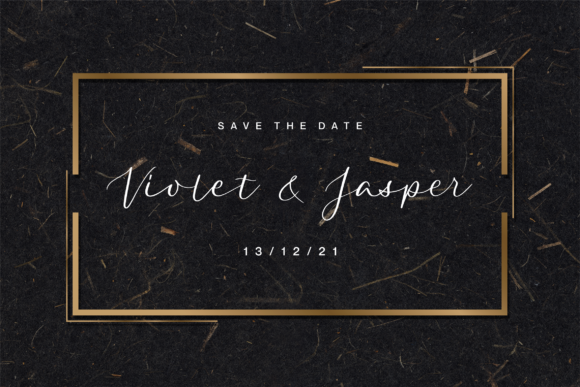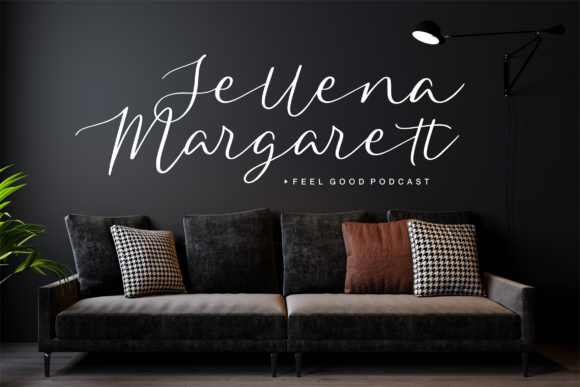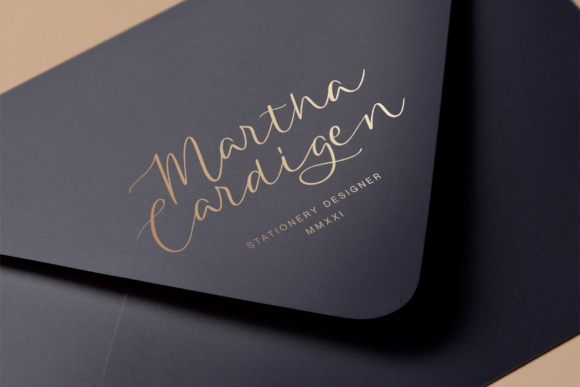
Introduction to Qarllottey Font
As a designer, have you ever been stuck in the midst of a creative project, searching for that perfect font to elevate your design and make it truly shine? You’ve scrolled through numerous options, but nothing seems to capture the essence you’re looking for. That’s where the Qarllottey Font comes in – a beautiful and refined script font that’s sure to leave a lasting impression.
With its classy, elegant, and modern look, the Qarllottey Font is a valuable addition to any designer’s toolkit. Whether you’re working on a logo, branding, invitation, or stationery design, this font is sure to add a touch of sophistication and refinement. And the best part? It’s available for free download, making it an accessible design resource for designers of all levels.
- Unique and elegant design, perfect for creative projects and design resources
- Comes in a single weight, ideal for projects requiring a clean and simple aesthetic
Honest Review: Qarllottey Font
As a designer, I’m always on the lookout for high-quality design resources to enhance my creative projects. Recently, I stumbled upon the Qarllottey Font, and I’m excited to share my honest review with you.
- The Qarllottey Font has a unique and elegant design, making it perfect for various creative projects.
- It comes with a transparent background, allowing for seamless integration with any design.
- The Qarllottey Font is well-suited for both digital and print designs, making it a versatile addition to any design arsenal.
While the Qarllottey Font is a great resource, I did encounter a few limitations. The font is not as extensive as some other options, with only a few weights and styles available. Additionally, the font may not be suitable for all types of projects, particularly those requiring a more playful or bold tone.
Overall, the Qarllottey Font is a solid addition to any designer’s toolkit. Its unique design, transparent background, and free download make it an excellent choice for creative projects. While it may not be perfect for every project, it’s definitely worth considering for those looking for a high-quality, elegant font.
For the best results, use the Qarllottey Font in a design project where a high-quality, transparent background is required. Experiment with different font sizes and styles to create visually appealing text effects. You can also combine the Qarllottey Font with other design resources to create a unique and creative project.
The Qarllottey Font is ideal for use in creative projects such as graphic design, digital art, and typography. It’s also suitable for use in business and marketing materials such as logos, brochures, and flyers.